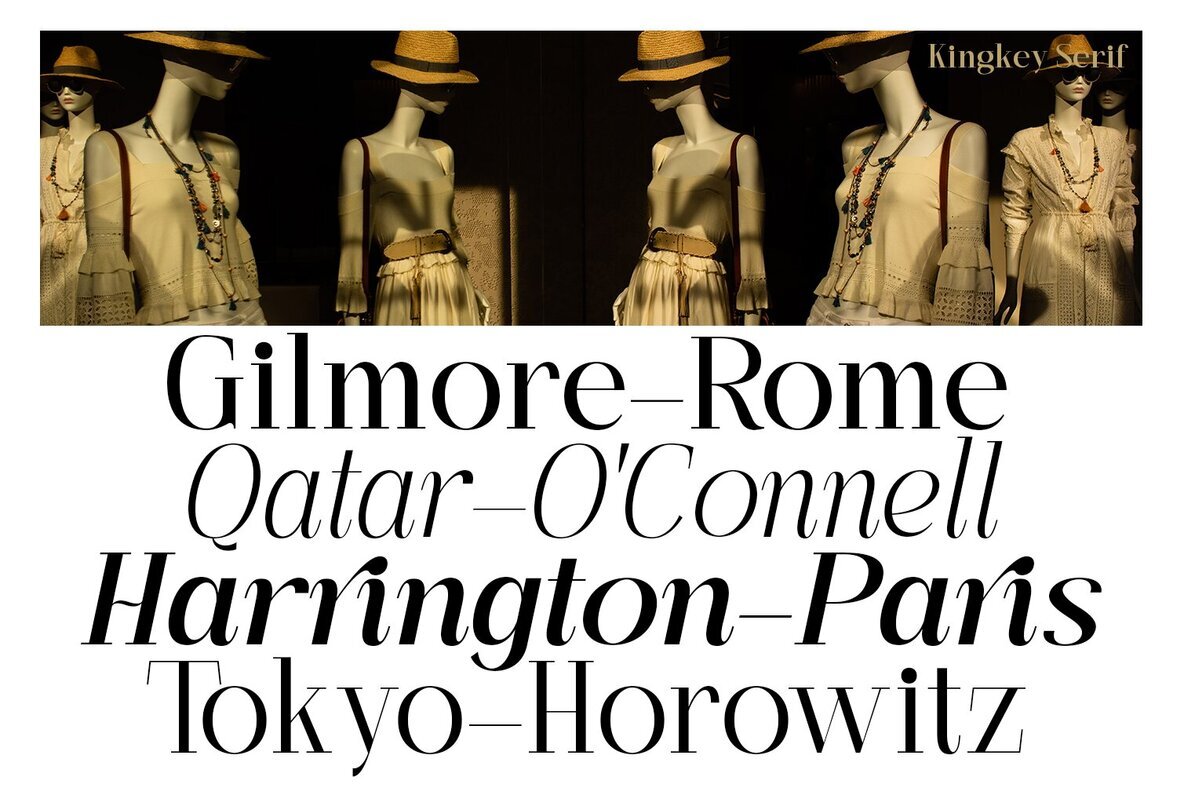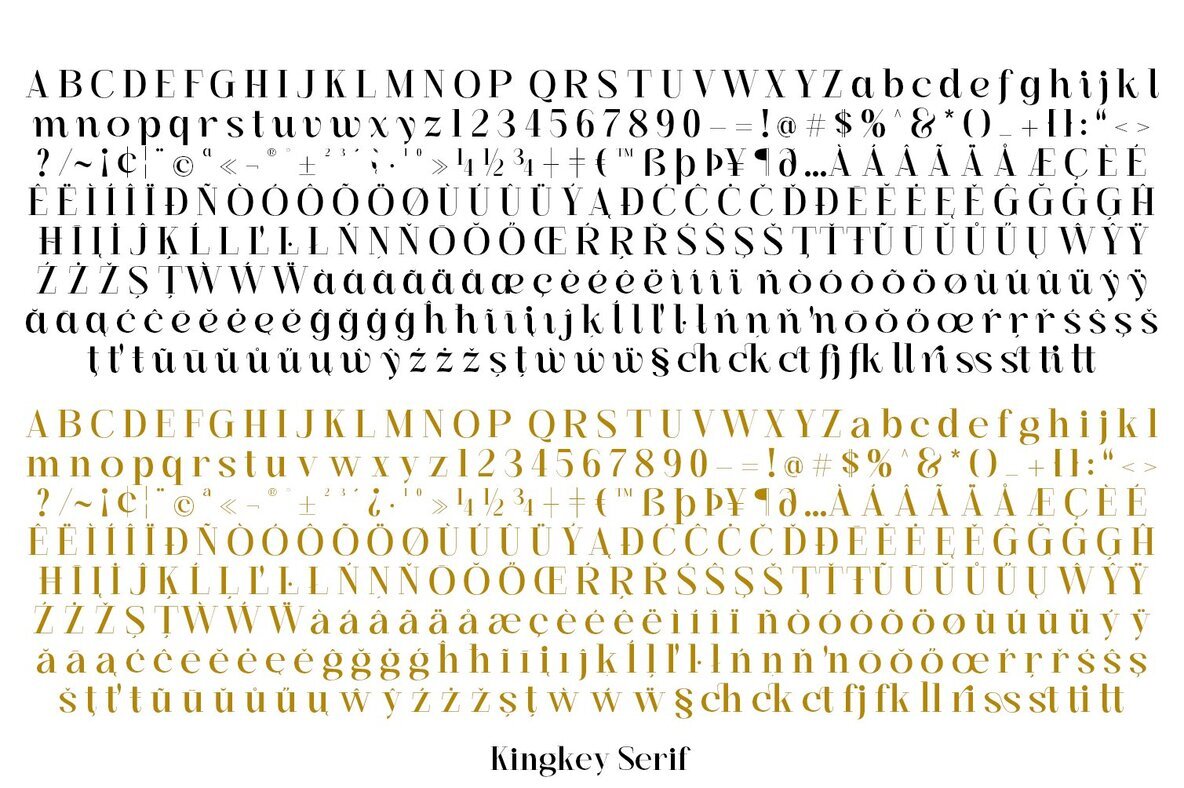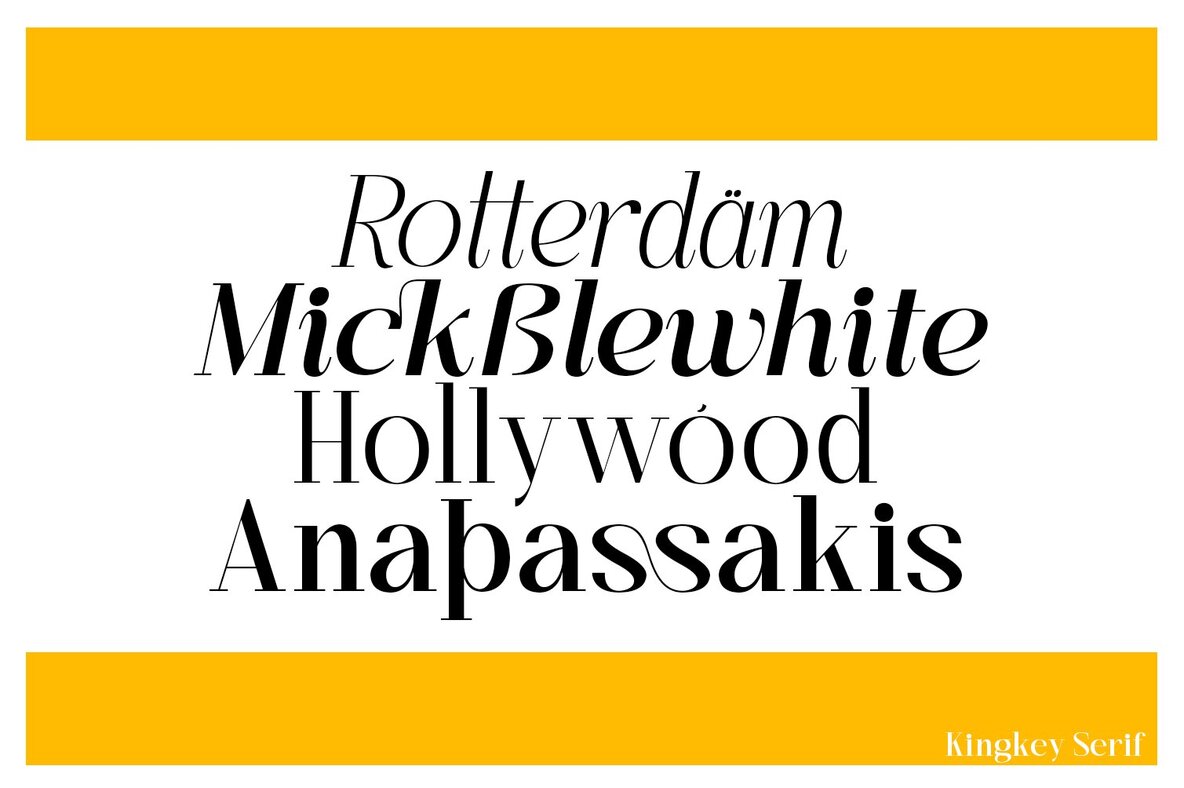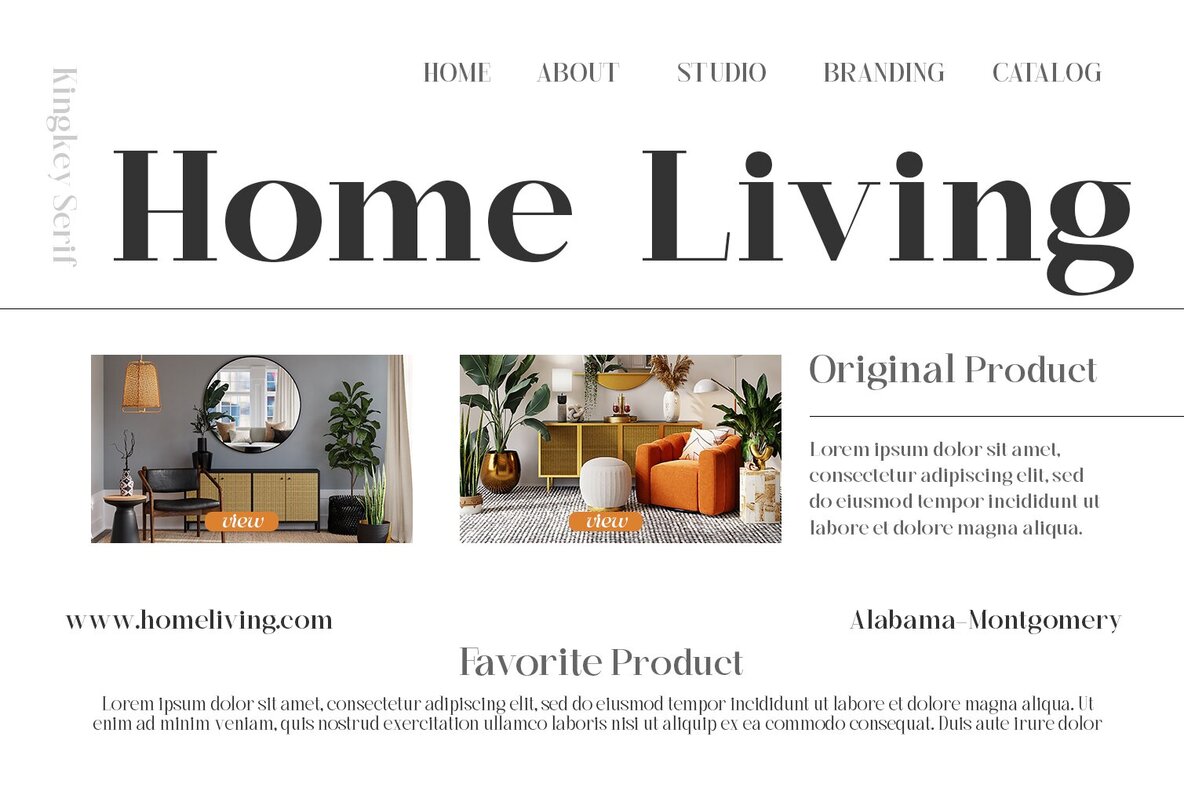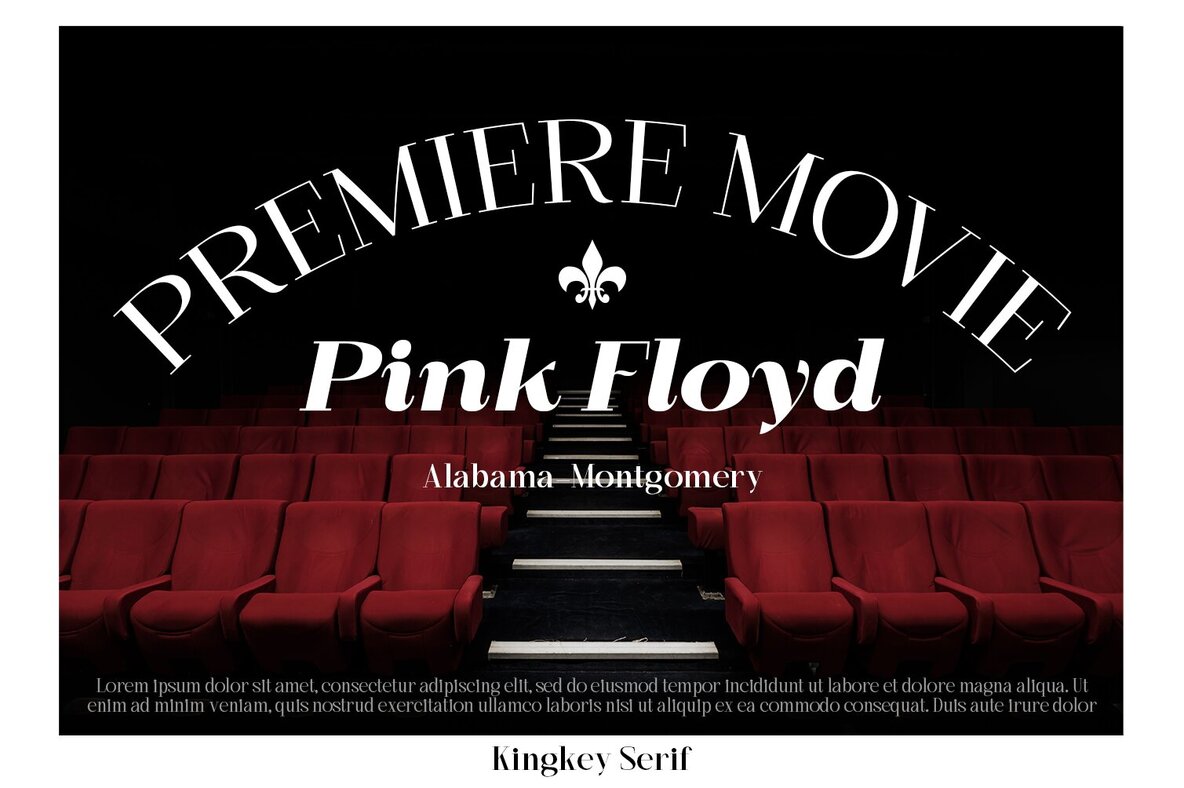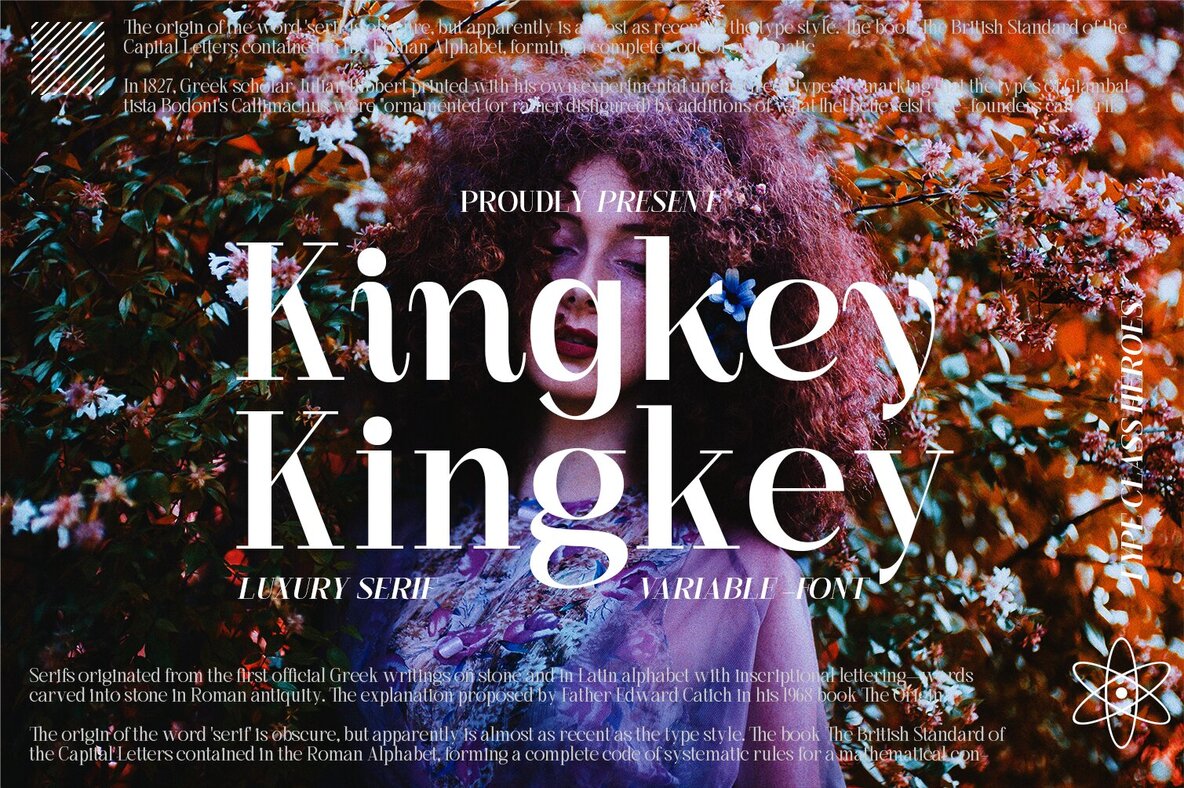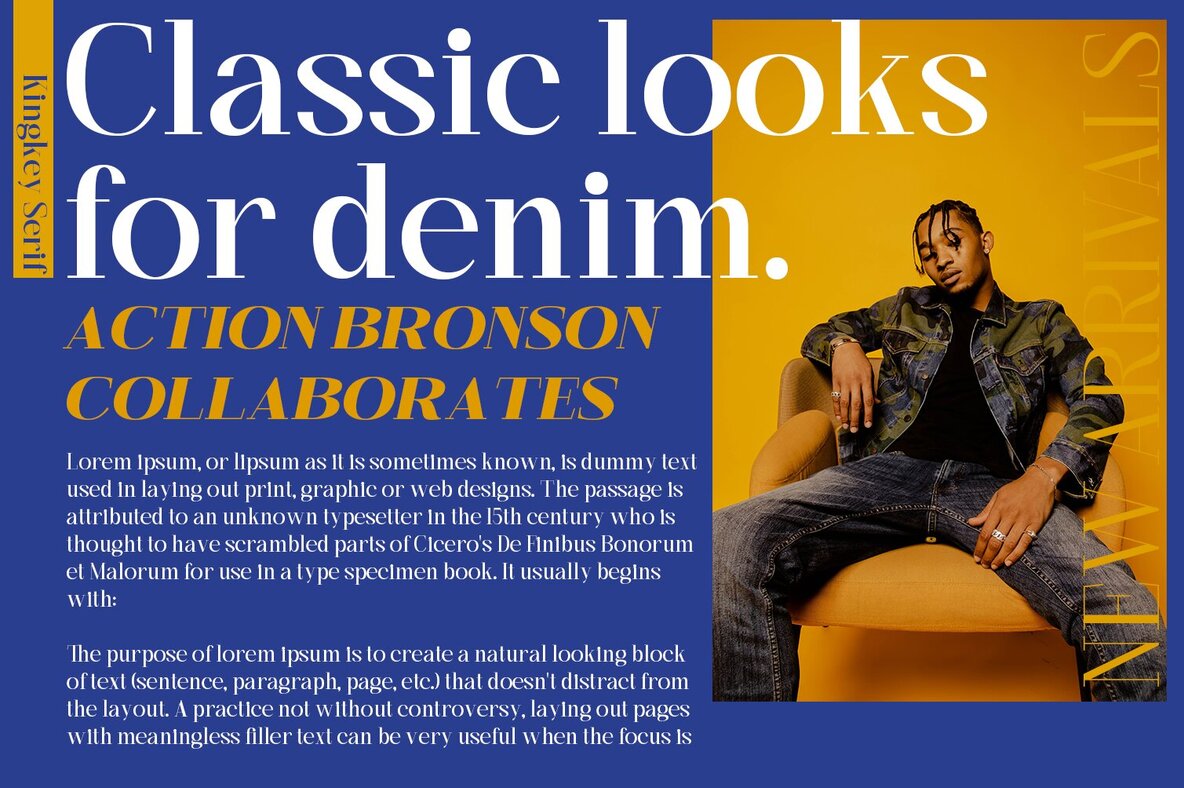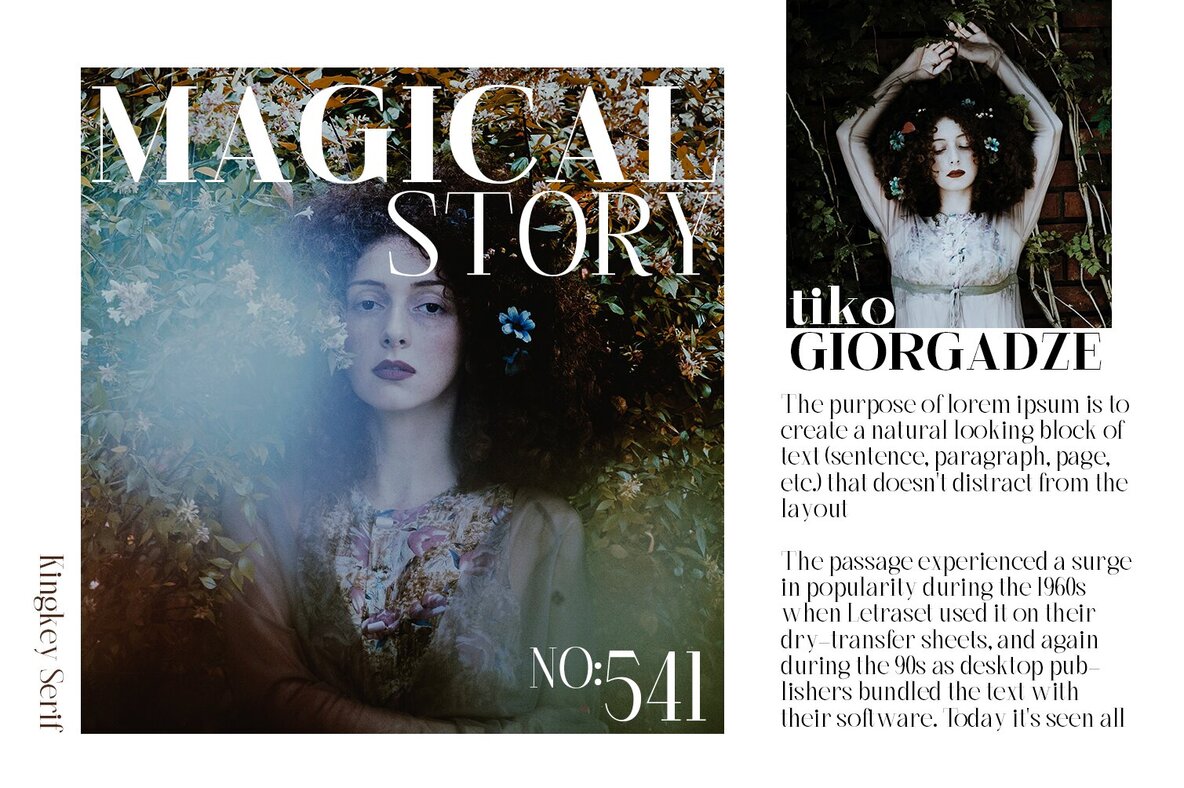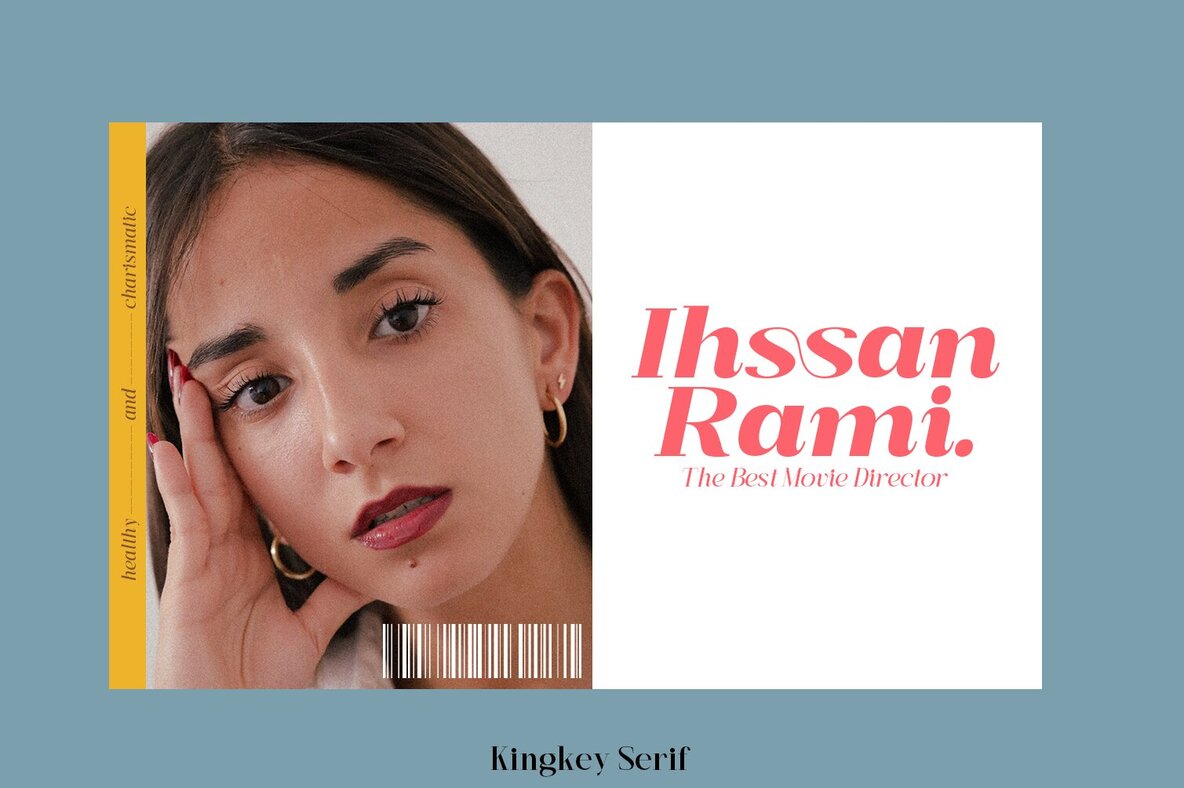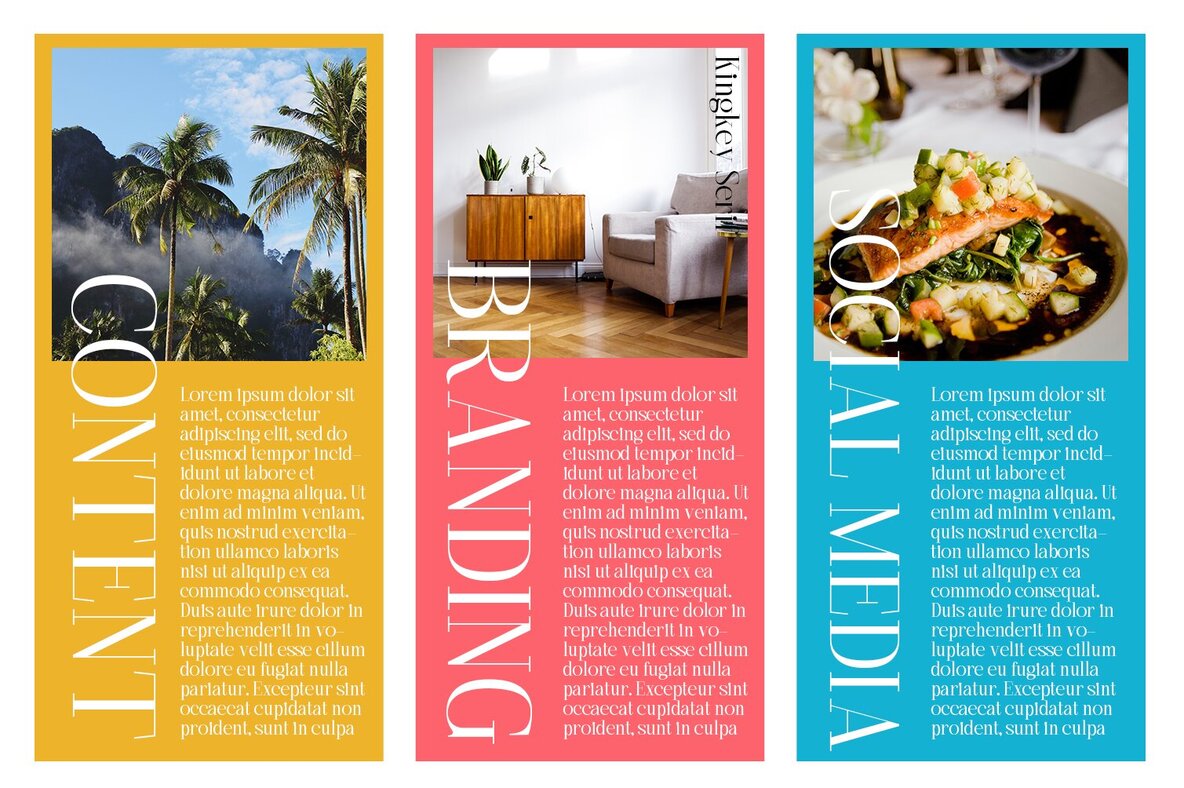
KIngkey Font
The Kingkey serif family by Type Class Heroes blends classic elegance with contemporary sophistication. With its clean lines and smooth design, Kingkey offers two distinct styles: Classic and Modern, providing unparalleled versatility for diverse branding applications. This font is perfectly suited for creating compelling product packaging, invitations, quotes, t-shirts, labels, posters, logos, and more.Kingkey: Classic and Modern Serif Family